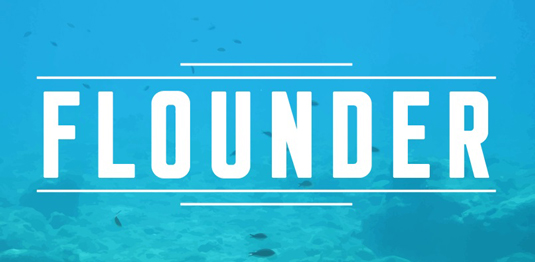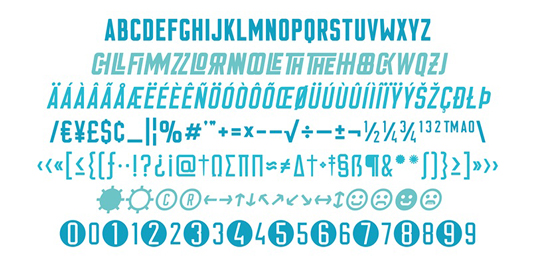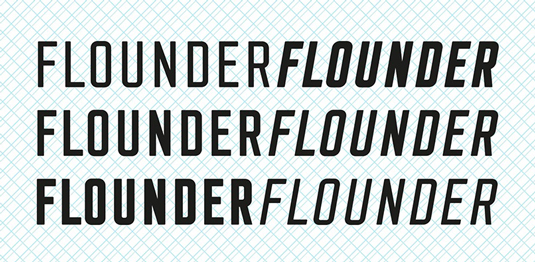
Font of the day: Flounder
Flounder by Dominik Krotscheck
Today's typeface of choice is Flouder by designer Dominik Krotscheck. Available from font foundry HypeForType, the Flounder is described as being "a simple and clean condensed all-caps sans serif font, with rounded edges and a wide range of accented glyphs". Available in three weights, Flounder is great for logos, headlines and much more.